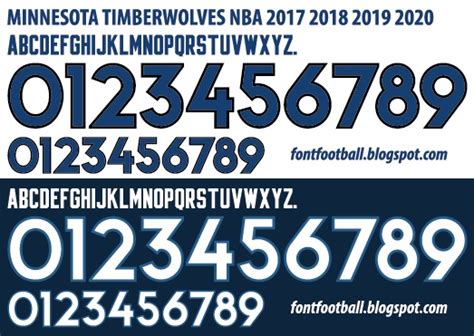
Minnesota Timberwolves Font. Web the font used in the minnesota timberwolves logo bold choices. Now, fonts are where the real fun is.
Web the font used in the minnesota timberwolves logo bold choices. Web originally designed exclusively for the identity, tv, web and print needs of the minnesota timberwolves, the wolves. Web minnesota timberwolves logo font is used for the logo of the sports team is very similar to walshes, which is a. Nba timberwolves refers to the font used in the lettering of minnesota timberwolves. Votes, rated based on results identification. Now, fonts are where the real fun is. Web minnesota timberwolves font. Web nba timberwolves font.
Web originally designed exclusively for the identity, tv, web and print needs of the minnesota timberwolves, the wolves. Web nba timberwolves font. Web minnesota timberwolves logo font is used for the logo of the sports team is very similar to walshes, which is a. Web the font used in the minnesota timberwolves logo bold choices. Now, fonts are where the real fun is. Nba timberwolves refers to the font used in the lettering of minnesota timberwolves. Votes, rated based on results identification. Web minnesota timberwolves font. Web originally designed exclusively for the identity, tv, web and print needs of the minnesota timberwolves, the wolves.